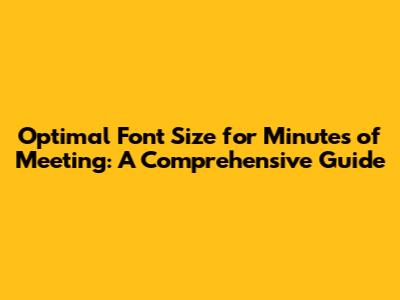
- Stick to Standard Fonts: Arial, Times New Roman, Calibri, and Verdana are all safe bets. They're widely available and easy to read.
- Avoid Fancy Fonts: Save the decorative fonts for invitations, not for professional documents. Clarity is key here.
- Consider Serif vs. Sans-Serif: Serif fonts (like Times New Roman) have small strokes at the ends of the letters, which some people find easier to read in large blocks of text. Sans-serif fonts (like Arial) are cleaner and more modern-looking, and work well for headings and shorter documents.
- Maintain Consistency: Use the same font throughout the entire document to create a cohesive and professional look.
- Use Styles: Create and use styles for headings, subheadings, and body text. This ensures consistency and makes it easy to update the formatting of the entire document.
- Adjust Line Spacing: Experiment with different line spacing options to improve readability. A setting of 1.15 or 1.5 is generally recommended.
- Use Page Margins: Ensure that your page margins are wide enough to prevent the text from feeling cramped. A margin of 1 inch on all sides is a good starting point.
- Check for Errors: Proofread your document carefully to catch any typos or formatting errors.
- Use Sufficient Contrast: Ensure that there is sufficient contrast between the text and the background. Black text on a white background is generally the most accessible option.
- Avoid Using Color Alone to Convey Information: People with color blindness may not be able to distinguish between certain colors. Use other cues, such as text labels or symbols, to supplement color coding.
- Use Alternative Text for Images: Provide alternative text descriptions for all images. This allows screen readers to convey the content of the images to visually impaired users.
- Use a Clear and Simple Layout: Avoid using complex layouts or excessive formatting, which can be difficult for people with cognitive disabilities to navigate.
- Version 1: Uses a font size of 10 points with tight line spacing. The text is cramped and difficult to read, causing eye strain and making it hard to focus on the content.
- Version 2: Uses a font size of 12 points with 1.5 line spacing. The text is clear and easy to read, allowing readers to quickly grasp the key information.
Hey guys! Ever wondered what the perfect font size is for your berita acara, or minutes of meeting? Well, you're not alone! Getting the font size right is super important for readability and making sure everyone can easily understand the document. Let's dive into making your minutes of meeting look professional and easy on the eyes.
Why Font Size Matters in Minutes of Meeting
Okay, so why should we even care about font size? Think about it: your minutes of meeting are a crucial record of what went down. They're used for reference, follow-up actions, and even legal documentation. If the font is too small, people will strain their eyes, get frustrated, and might even miss important details. Too big, and your document looks unprofessional and takes up unnecessary space. Readability is king! A well-chosen font size ensures that everyone, from the CEO to the newest intern, can easily read and understand the content. Plus, clear and legible minutes reflect positively on the organization's professionalism and attention to detail. Imagine trying to decipher a tiny, cramped document filled with important decisions – not fun, right? By optimizing the font size, you're essentially making the document more accessible and user-friendly, which can significantly improve communication and collaboration within the team. It also ensures that the document complies with any internal or external standards for documentation. So, let's get this right and make our lives easier!
Recommended Font Sizes for Different Sections
Alright, let's get practical! Here’s a breakdown of the best font sizes for different sections of your minutes of meeting:
Main Body Text
For the main content, like the discussion points and decisions made, a font size of 11 or 12 points is generally ideal. This size is large enough to be easily readable without taking up too much space. Common fonts like Arial, Times New Roman, or Calibri work great here. Using a clear, standard font ensures consistency and avoids any distractions. Think of it as the Goldilocks zone – not too big, not too small, just right! It's also important to consider line spacing; a setting of 1.15 or 1.5 can improve readability by preventing the text from feeling cramped. The goal is to create a comfortable reading experience, allowing readers to focus on the content without any visual strain. Furthermore, consider the font's x-height – fonts with a larger x-height (the height of the lowercase 'x') tend to appear larger and more readable at the same point size. So, experiment a bit to find what works best for your chosen font. Remember, consistency is key, so stick to one font and size throughout the main body of the document.
Headings and Subheadings
Headings and subheadings should be larger and bolder than the main text to help readers quickly navigate the document. A good rule of thumb is to use 14-16 points for main headings and 12-14 points for subheadings. Using a slightly different font for headings can also add visual interest and hierarchy. For example, you might use Arial for the body text and Arial Bold for the headings. This contrast helps to break up the text and makes it easier to scan for specific information. Ensure that the headings clearly indicate the topics covered in each section, providing a roadmap for the reader. Consistent use of heading styles throughout the document also contributes to a professional and organized appearance. Don't be afraid to use visual cues like underlining or color to further differentiate headings, but always ensure that these elements enhance readability rather than detract from it. The key is to create a clear visual hierarchy that guides the reader through the document and highlights key information.
Footnotes and Captions
For footnotes, captions, and other supplementary text, a smaller font size of 9 or 10 points is usually sufficient. This allows you to include additional information without cluttering the main text. Use a simple, readable font like Arial or Times New Roman. Ensure that the footnotes are clearly linked to the relevant sections of the document using superscript numbers or symbols. Captions should be placed directly below the corresponding figures or tables and should provide a brief description of the content. While these elements are important, they should not distract from the main body of the text. Using a smaller font size helps to visually separate them from the primary content, indicating that they contain supporting or explanatory information. It's all about creating a balance between providing enough detail and maintaining a clean, uncluttered layout. Remember to keep the font consistent throughout all footnotes and captions to maintain a professional and cohesive look.